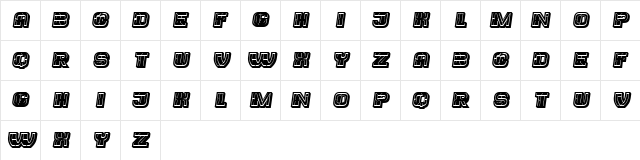
Trader Black Filled Italic
Design Context for Trader Black Filled
Trader Black Filled is a composed and adaptable typeface that performs quietly and consistently across a wide range of design contexts. The slanted form adds forward momentum and visual energy.
Pro Tip: Use Trader Black Filled for emphasis, pull quotes, and subheadings where its slanted energy can add rhythm to the layout.